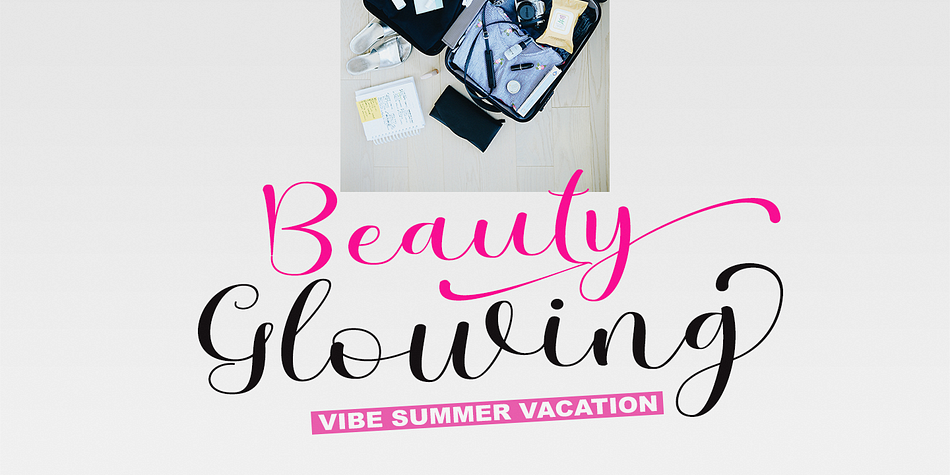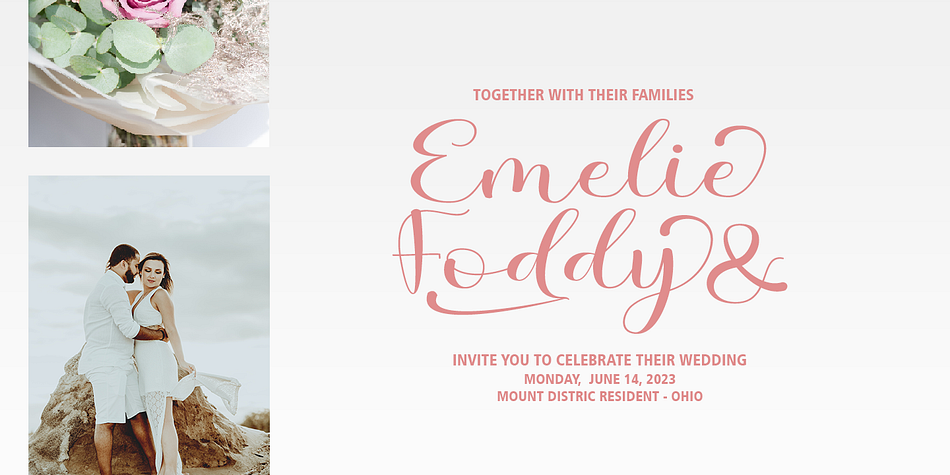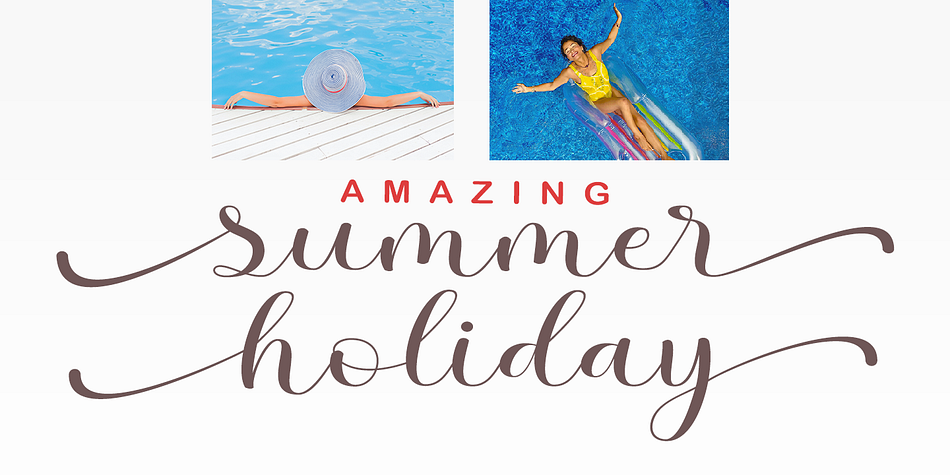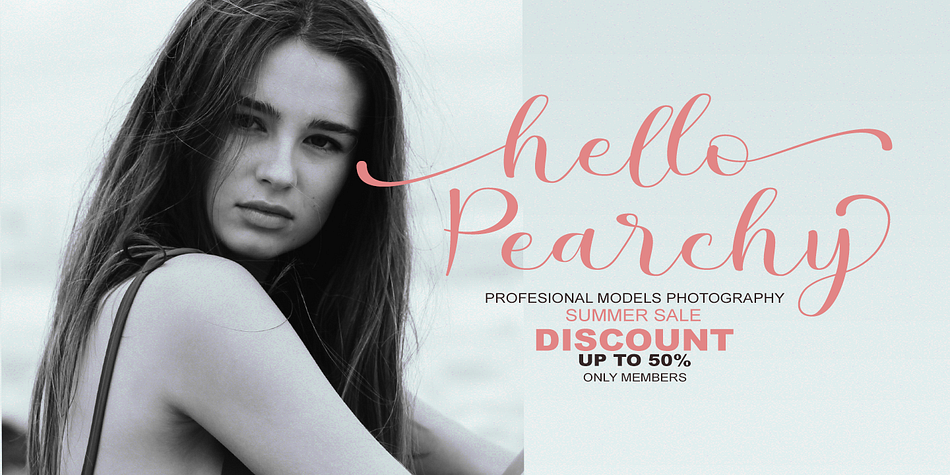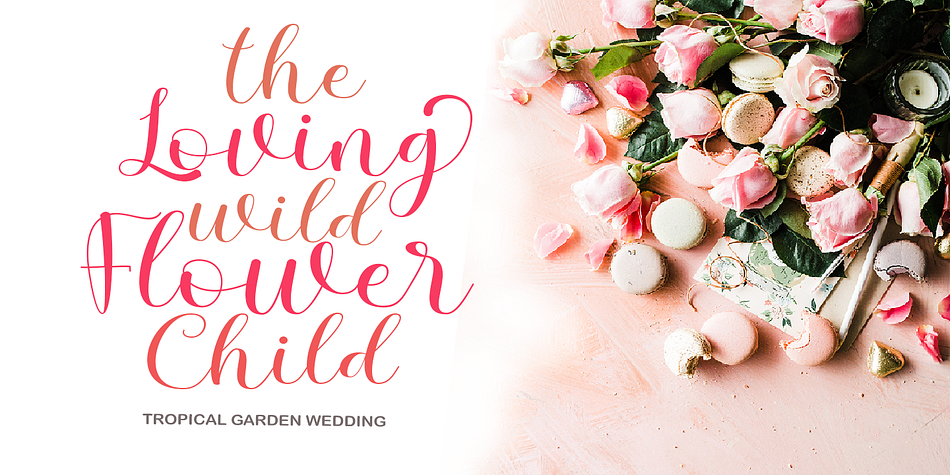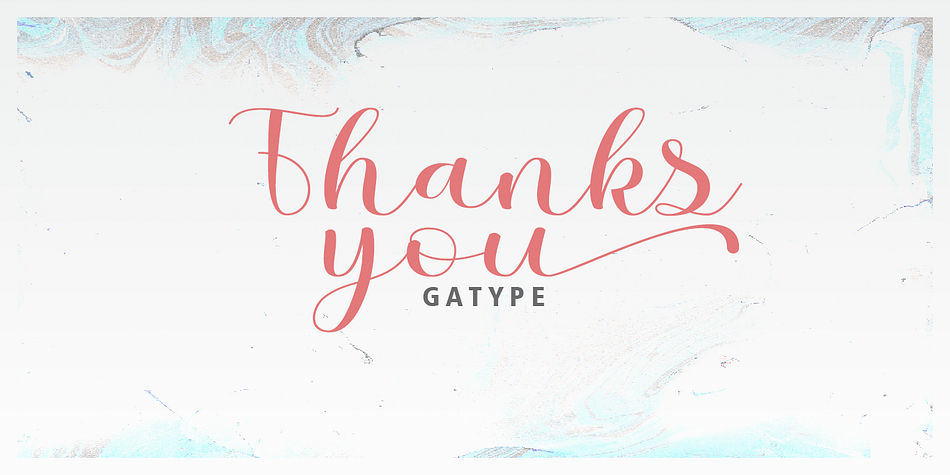
Rolling
Rolling is a modern calligraphy font family published by Gatype.
Introducing Rolling - a typeface inspired by classic style script. This font has many alternative styles, ligatures, so you can play around with it using the opentype feature and create letters with a natural touch. This type of font is perfectly made to be applied especially to logos, and various other formal forms such as invitations, labels, logos, magazines, books, greeting / wedding cards, packaging, fashion, make up, stationery, novels, labels or whatever. type of advertising objective.
The script includes a set of uppercase characters, numbers, Alernates etc